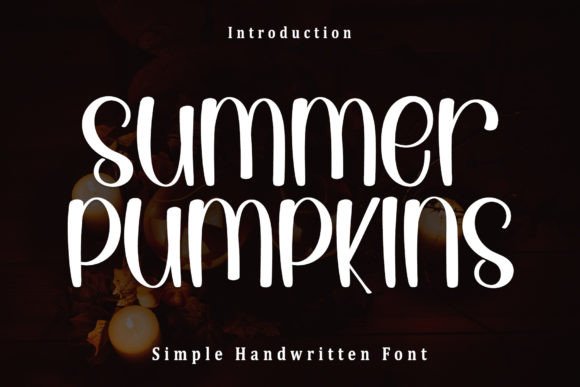
Adorn your designs with the charm of Summer Pumpkins Font, a captivating piece of art that brings elegance to every letter. This enchanting script font, crafted with precision and passion, is a testament to creativity and artistry. Its meticulously drawn characters, reminiscent of a skilled calligrapher's hand, exude a timeless allure that will leave you spellbound.
Unlock the possibilities of Summer Pumpkins Font and embark on a journey of artistic expression. Transform your projects into masterpieces, whether it's a heartfelt greeting card, an eye-catching poster, or an unforgettable logo. The font's versatility knows no bounds, allowing you to weave magic into every word and design.
Step into a world of sophistication and grace with Summer Pumpkins Font. Its delicate curves and flourishes, reminiscent of a summer breeze, will add a touch of enchantment to your creations. Whether you're a seasoned designer or just starting your creative journey, this font is the perfect companion to elevate your work.
Dive into the beauty of Summer Pumpkins Font and discover the power of exquisite typography. Let your imagination soar as you explore its endless possibilities. From enchanting invitations to captivating social media posts, this font is the key to unlock your creative potential. Experience the joy of seamless editing, with characters that blend effortlessly to form words that dance across the page.
Welcome to the world of Summer Pumpkins Font, where creativity meets elegance. Embrace the allure of this timeless script font and let your projects bloom with artistry. Let your designs blossom with the beauty of Summer Pumpkins Font, a font that captures the essence of enchantment and grace.